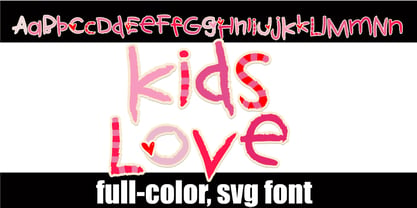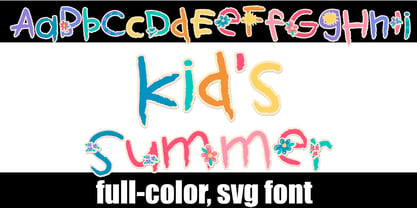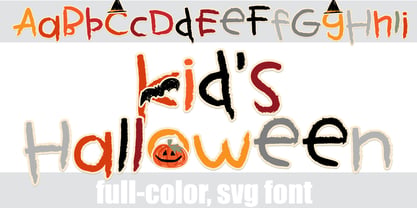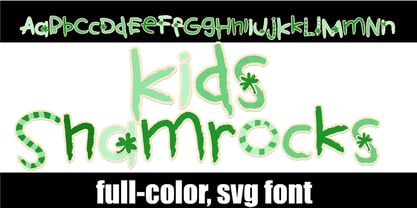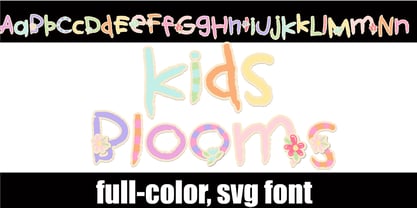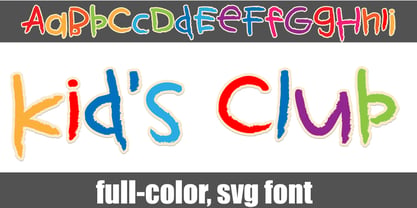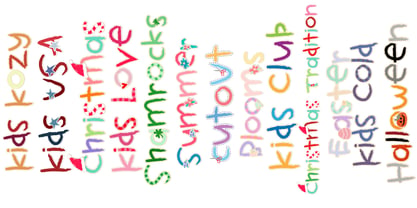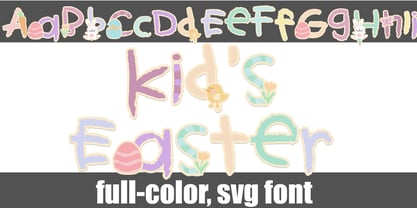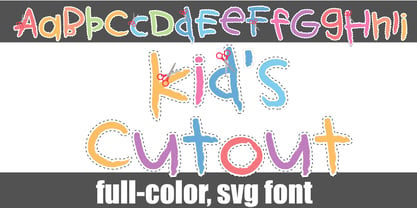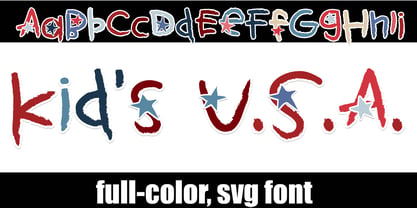
Kids Color
by Illustration Ink
The Kids Color Font Family was designed by Illustration Ink and published by Illustration Ink. Kids Color contains 13 styles and family package options. More about this family
These full-color fonts features a crayon-like, childish quality to each letter. There is an alt case of alternate colorings of each letter that you can access through your system glyph map. Full-color fonts are installed like any normal font is installed. Please note color fonts will show as black in non-compatible programs. They often show as black when choosing the font in the preview window in programs that support color fonts. You will know if your program can support color fonts when you type on the document and see them in color. Adobe products, Silhouette Studio, Quark, and Inkscape, amongst others, support full-color fonts at this time. Full-color fonts are the perfect way to add a touch of personality to your designs. With a full range of colors and styles to choose from, you can create anything from simple text logos to complex illustrations. Plus, color fonts are vector-based, so they can be scaled to any size without losing quality. Here are some of the benefits of using full-color fonts: They are versatile and can be used for a variety of projects, from logos and branding to web design and print. They are scalable, so you can use them for any size project. They are high quality and will not lose their resolution when scaled. They are easy to use and can be installed in any software that supports color fonts. If you are looking for a versatile, high-quality font that can be used for a variety of projects, then a full-color font is the perfect choice for you.
Kids Color